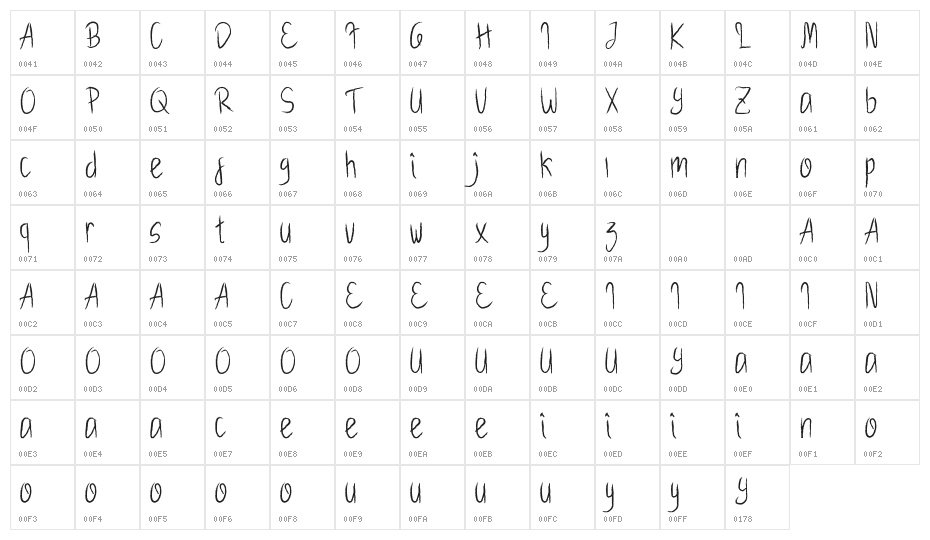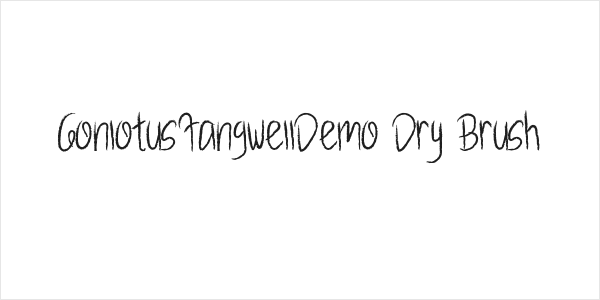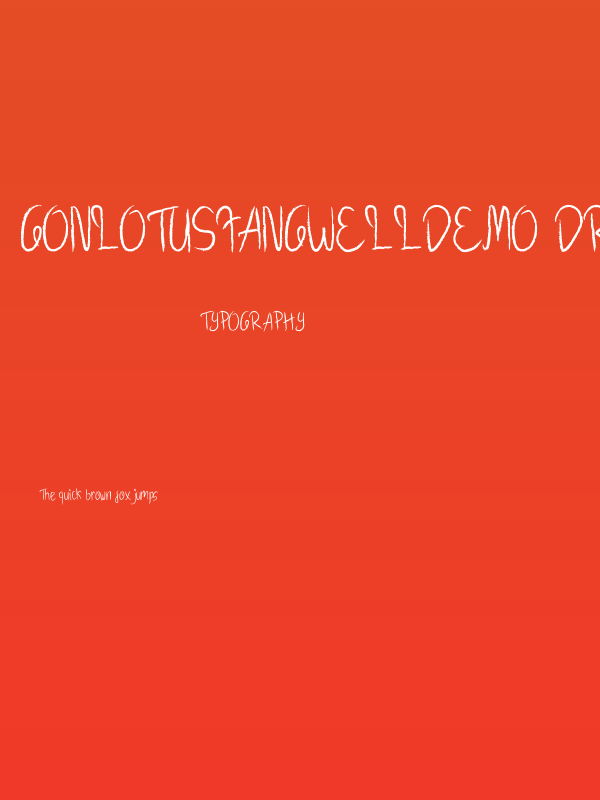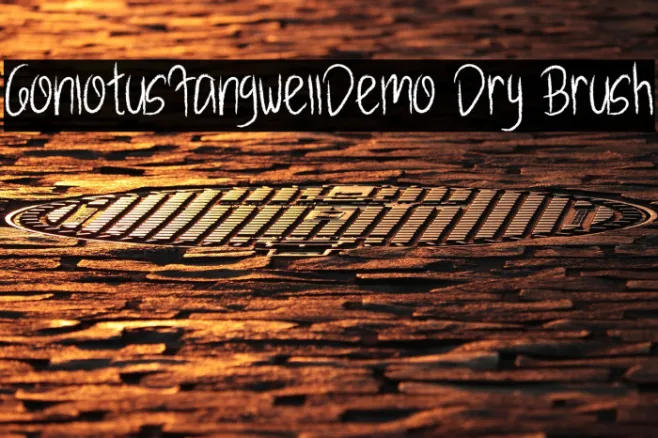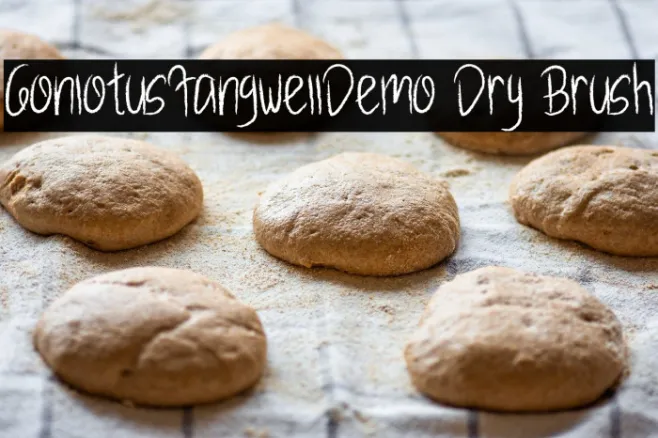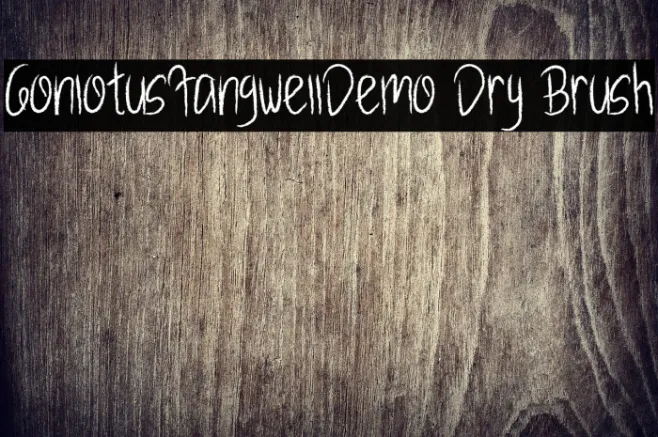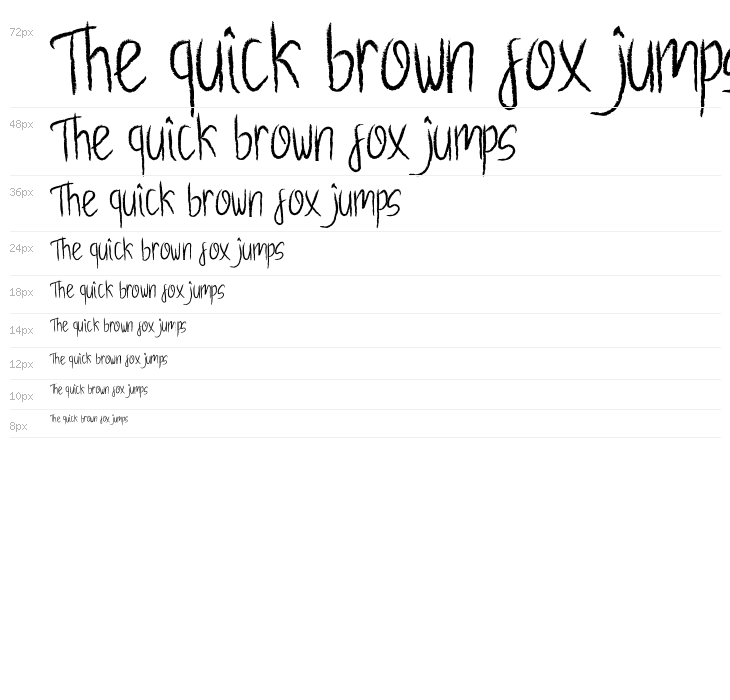
GonlotusFangwellDemo Dry Brush Font
GonlotusFangwellDemo Dry Brush Description
This font exudes a dynamic and artistic flair, characterized by its dry brush style that mimics the texture of hand-painted strokes. The letters are uneven and organic, giving a sense of movement and energy. The uppercase and lowercase letters maintain a consistent style, with elongated and slightly irregular forms that enhance its handcrafted appearance. The strokes vary in thickness, adding to the font's expressive nature. This font is ideal for projects that require a personal touch or an artistic edge, such as branding for creative industries, posters, and invitations. Its unique style makes it stand out, capturing attention with its bold and artistic presentation.
| Overall Style | Artistic |
| Proposed Projects | Ideal for creative branding, posters, invitations, and artistic projects. |